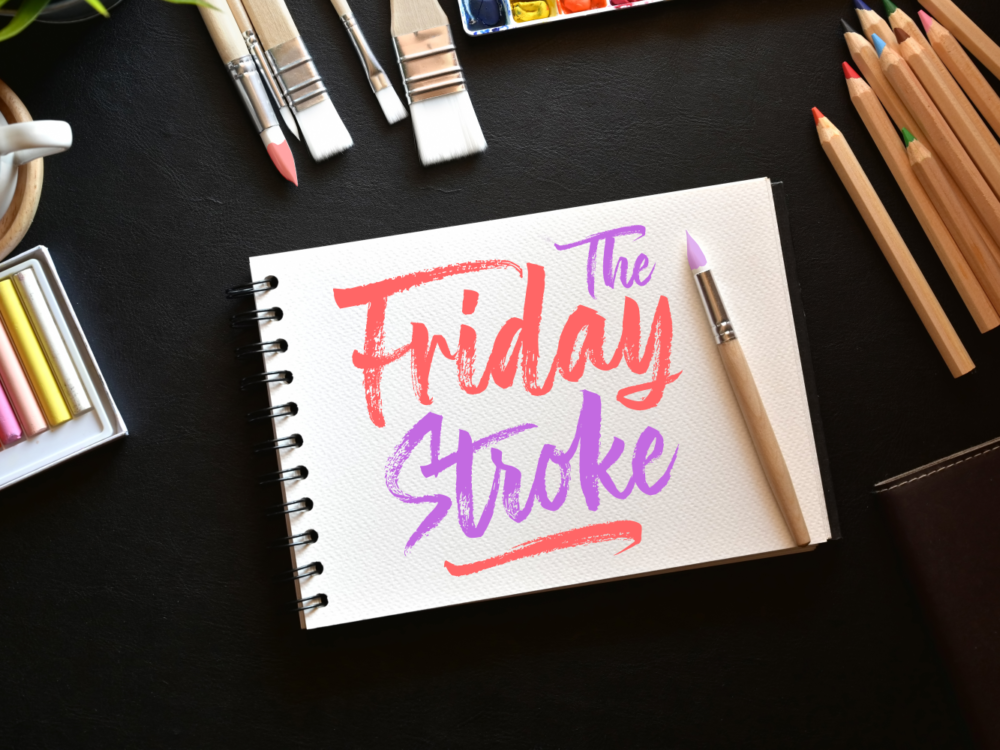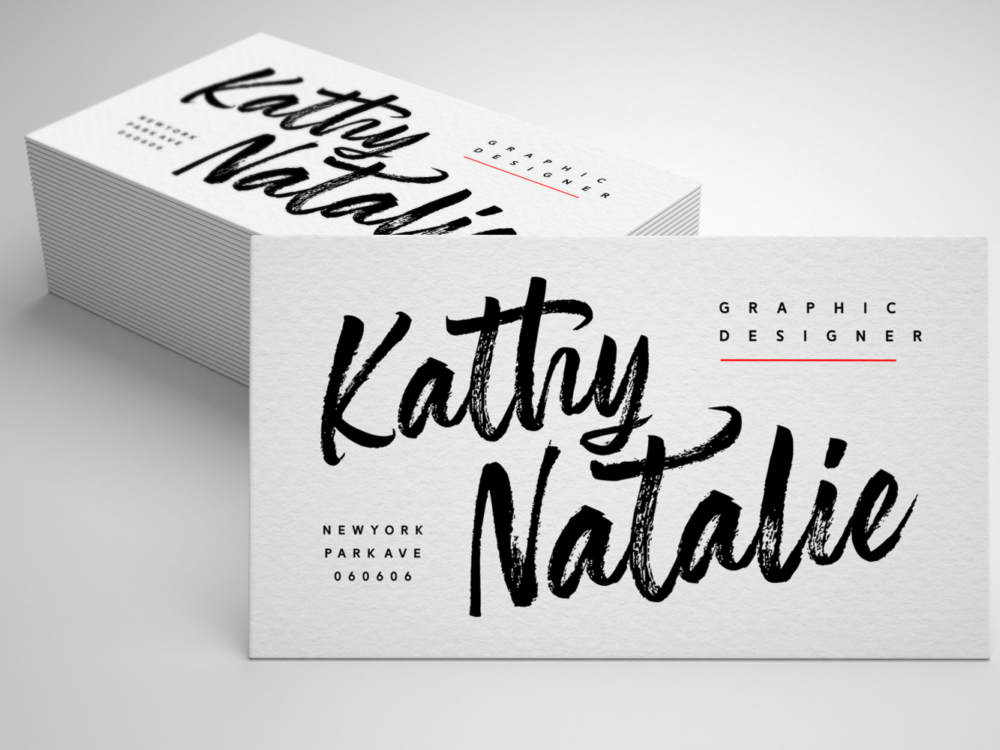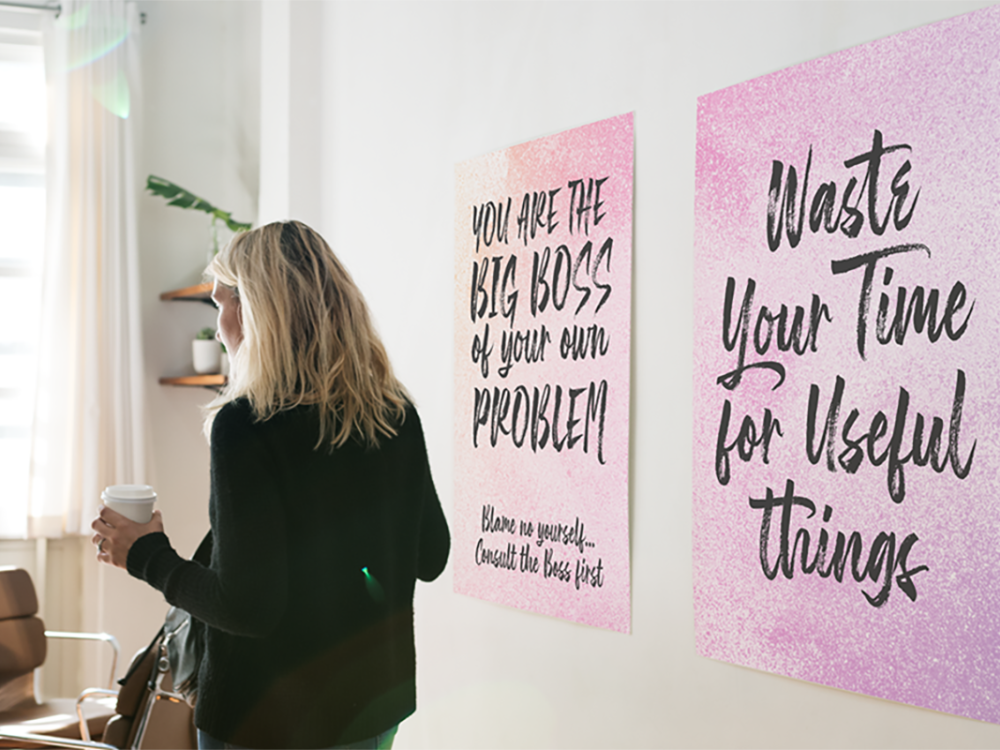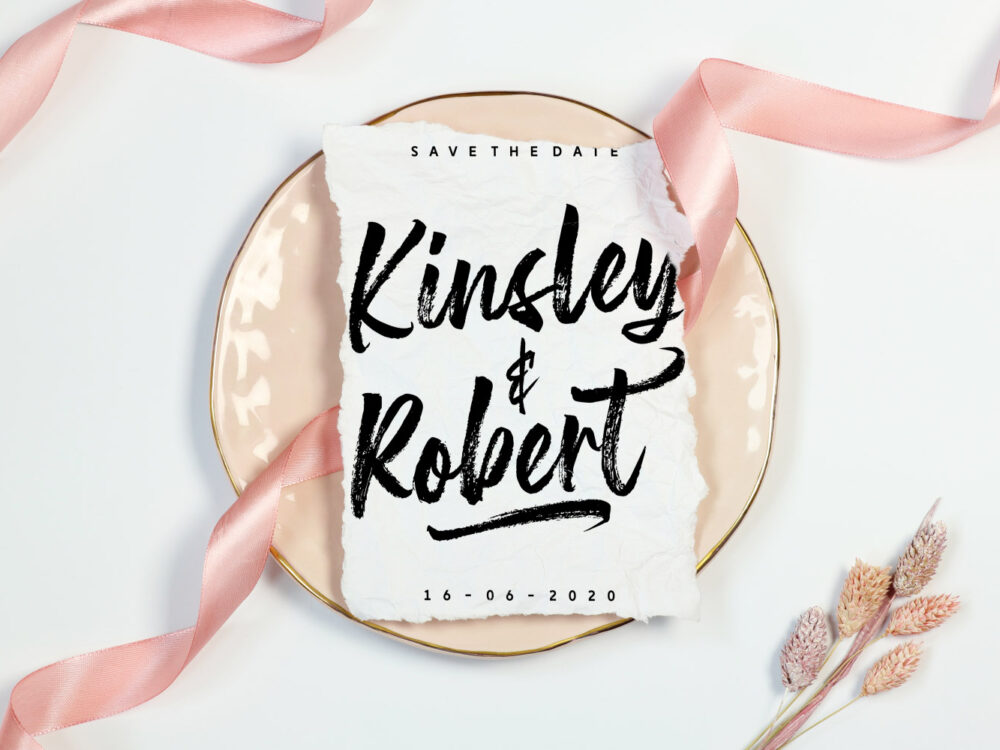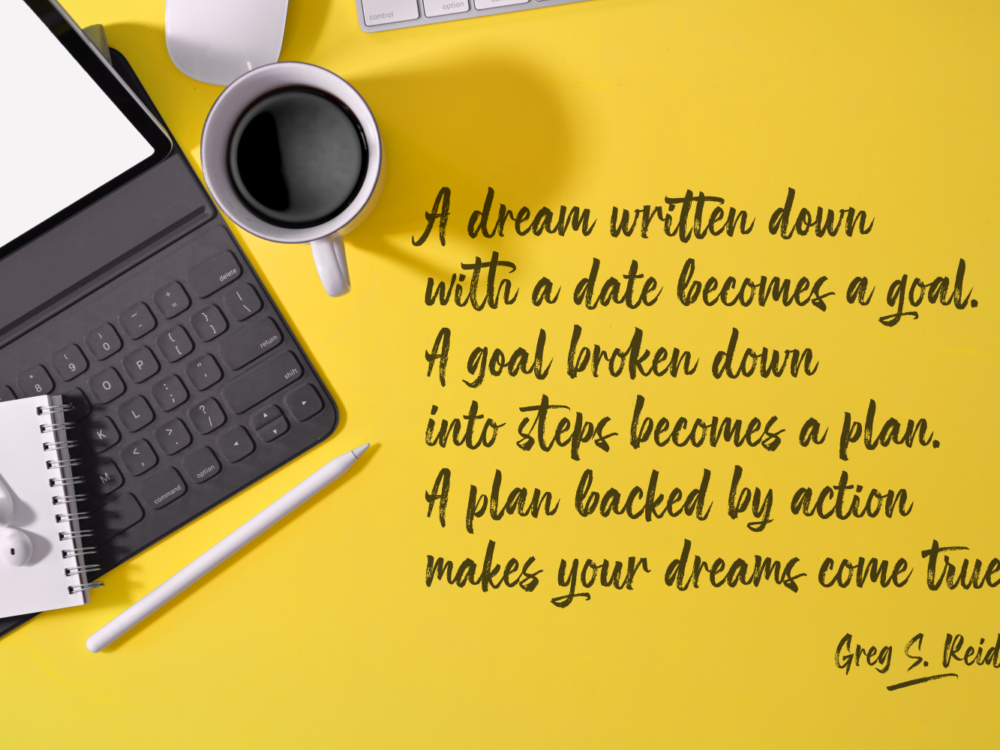
The Friday Stroke Font
Free Brush Font
The Friday Stroke Font is an interesting forgotten handwritten font that can surprise you with its original style. Use this font to make your design project stand out from others and make it unique. So, if you wish to access more features and use it for commercial work, go get the full version as well.